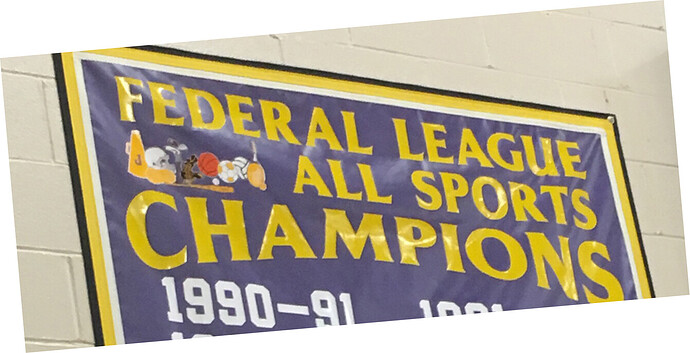
Can anyone help me identify this font. Not the years, the header. I’ve scoured all my fonts and can’t seem to find. It has really small serifs. Thank you.